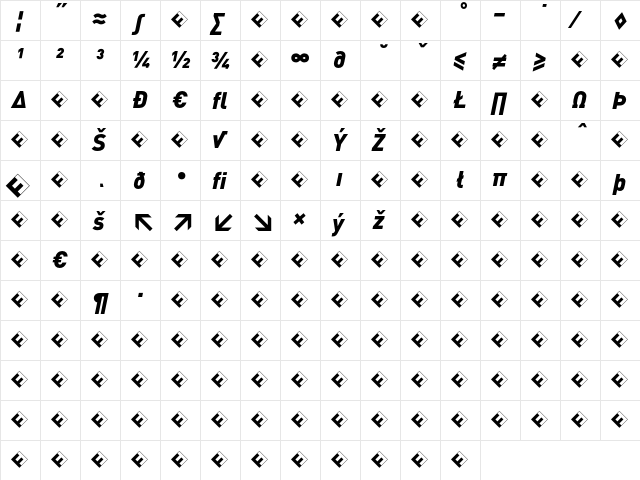
DIN-BlackItalicExp Regular
Design Context for DIN-BlackItalicExp Typeface
DIN-BlackItalicExp offers clean, dependable letterforms without strong stylistic allegiance, making it a practical choice for designers who need flexibility. The slanted form adds forward momentum and visual energy.